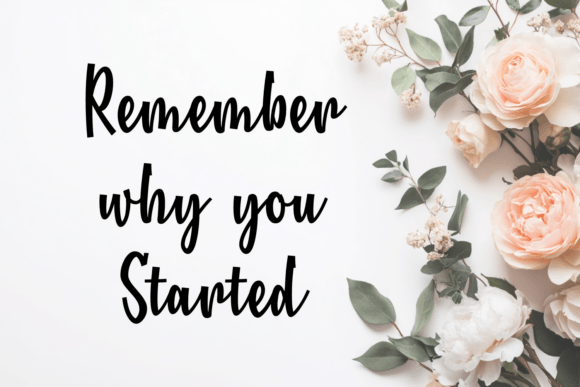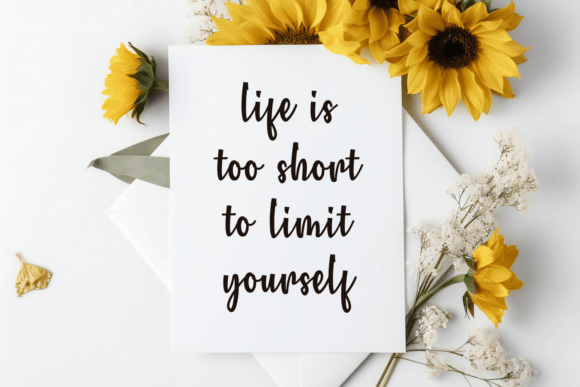
Discover the Magic of Angel Voice Font
Have you ever been browsing through a beautifully designed invitation or greeting card, and suddenly you’re stopped in your tracks by the elegant script font that catches your eye? That’s exactly what happens when you use the Angel Voice Font in your designs. This stunning script font is perfect for adding a touch of warmth and personality to your creative projects.
Angel Voice Font is designed to be elegant and flowing, with smooth and graceful letters that make it a joy to work with. Whether you’re a seasoned designer or just starting out, this font is a valuable addition to your toolkit. With its versatility and beauty, it’s no wonder that designers are turning to Angel Voice Font to add a personal touch to their designs.
Angel Voice Font Key Features
- Font Family: Angel Voice is a unique, hand-drawn font designed to evoke a sense of elegance and sophistication. It features a range of characters, including uppercase and lowercase letters, numbers, and punctuation marks.
- Size: Angel Voice is a medium-sized font, with a point size range of 8-72 points, making it suitable for a variety of applications, from body text to headings.
- Resolution: Angel Voice is optimized for high-resolution displays, with a resolution of up to 300 DPI, ensuring crisp and clear rendering on modern screens.
- Unique Characteristics: Angel Voice features a distinctive, hand-drawn style with subtle flourishes and curves, giving it a personal and emotive feel. Its unique character set and ligatures add to its charm and expressiveness.
Angel Voice Font Review
I must say, I’m quite impressed with the Angel Voice Font! ✨ The elegant, cursive script is reminiscent of traditional handwriting, making it perfect for adding a touch of warmth and personality to your designs. ✨ The font’s fluid lines and subtle flourishes create a sense of movement and dynamism, drawing the viewer’s eye through the text.
- Works well for: invitations, wedding stationery, greeting cards, and any design where a touch of whimsy is needed.
- Perfect for: creating a sense of romance, elegance, and sophistication.
However, there are a few limitations to consider: ⚠️ The font may not be suitable for large blocks of text, as it can become difficult to read at smaller sizes. Additionally, the font’s cursive nature can make it challenging to pair with other fonts, so be sure to choose a compatible companion font. ⚠️
Overall, I’m pleased with the Angel Voice Font and would recommend it for designers looking to add a touch of elegance and whimsy to their designs.
Tips for Getting the Most Out of Angel Voice Font
Use the Angel Voice font to create a whimsical and dreamy atmosphere in your designs.
Pair it with pastel colors and floral patterns for a romantic and feminine look.
Experiment with different font sizes and styles to create a sense of movement and energy.
The Angel Voice font is perfect for:
Children’s book illustrations and design
Whimsical branding and marketing materials
Any project that requires a touch of magic and wonder